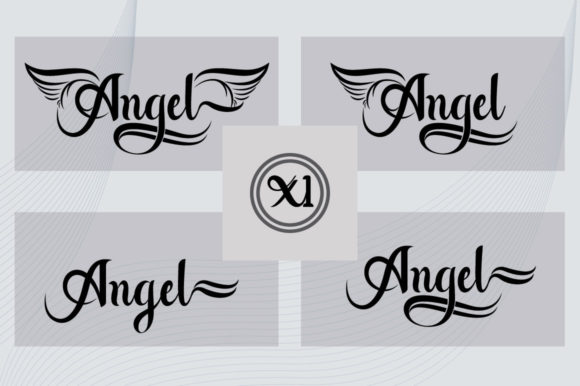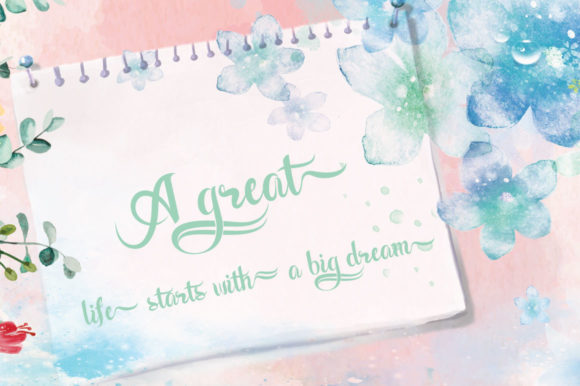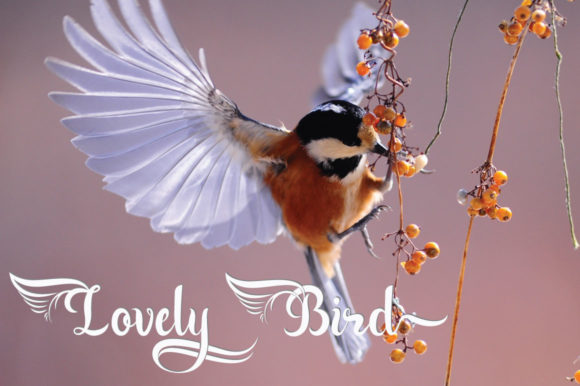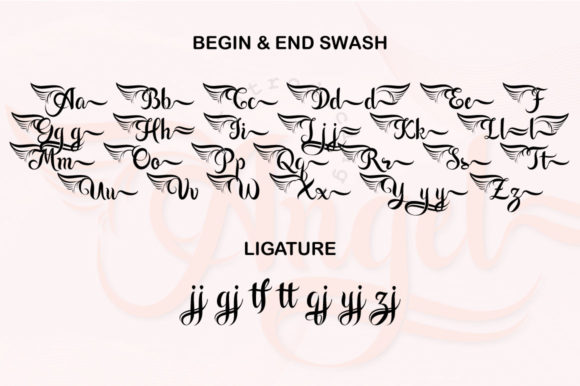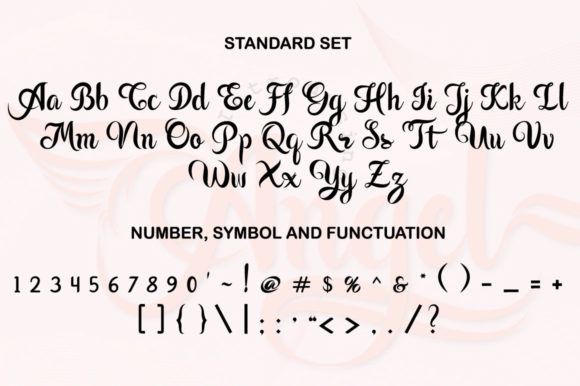
The Angel Font: A Designer’s Delight
I’ll never forget the moment I stumbled upon the Angel font. I was working on a project for a client who wanted a elegant and sophisticated look, but I was struggling to find the right font. I had tried countless options, but nothing seemed to fit the bill. That was until I discovered Angel – a beautiful, graceful script font that instantly captured my heart.
As I began to work with Angel, I fell in love with its ravishing style and the way it seemed to elevate my designs. The font’s unique charm and character made it perfect for a wide range of projects, from wedding invitations to branding materials. In this article, I’ll share my experience with Angel, including what I love about it, some of its quirks, and how to get the most out of this stunning font.
What I Love About Angel ✨
- 💫 Elegant and sophisticated design that’s perfect for high-end projects
- ✅ PUA encoded, making it easy to access all the amazing glyphs and ligatures
- 🌈 Highly versatile and can be used for a wide range of design projects
- 📚 Extensive character set, including stylistic alternates and OpenType features
Some Quirks to Consider 🤔
- ⚠️ May require some time to get used to the unique letterforms and spacing
- 🤔 Not ideal for body text or long-form reading due to its script nature
The Story Behind Angel
Angel was designed by a team of typographers who wanted to create a font that would evoke a sense of elegance and sophistication. The font’s unique design is inspired by traditional calligraphy and lettering techniques, with a modern twist. The result is a font that’s both beautiful and versatile, making it perfect for a wide range of design projects.
Q: What is PUA encoding, and how does it work?
A: PUA (Private Use Area) encoding is a way of encoding fonts that allows for easy access to glyphs and ligatures. With Angel, this means you can easily access all the amazing glyphs and ligatures without having to use complex keyboard shortcuts.
Q: Is Angel suitable for body text or long-form reading?
A: While Angel is a beautiful font, it’s not ideal for body text or long-form reading due to its script nature. It’s best used for headlines, titles, or short-form text.